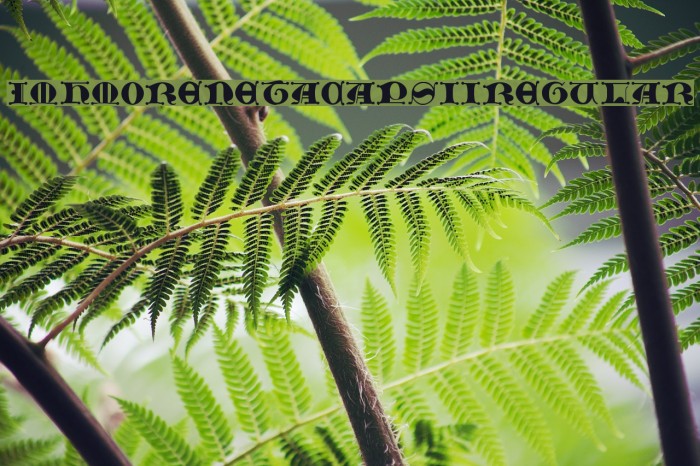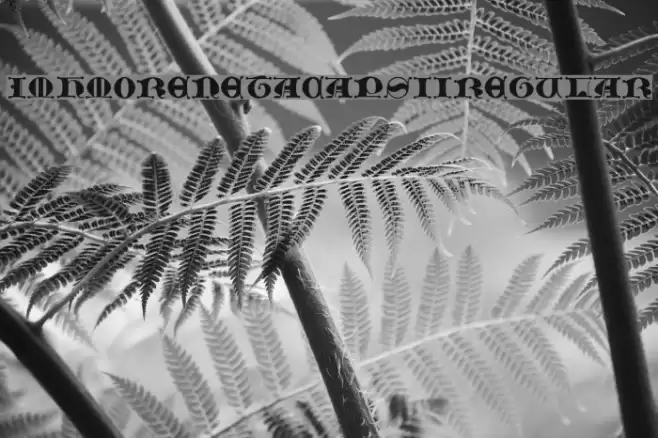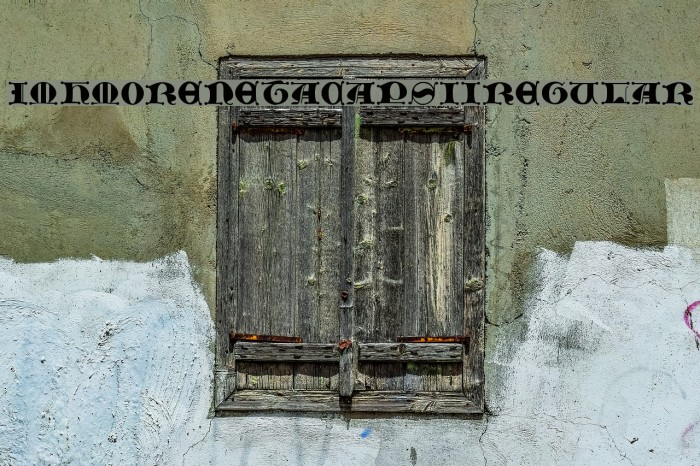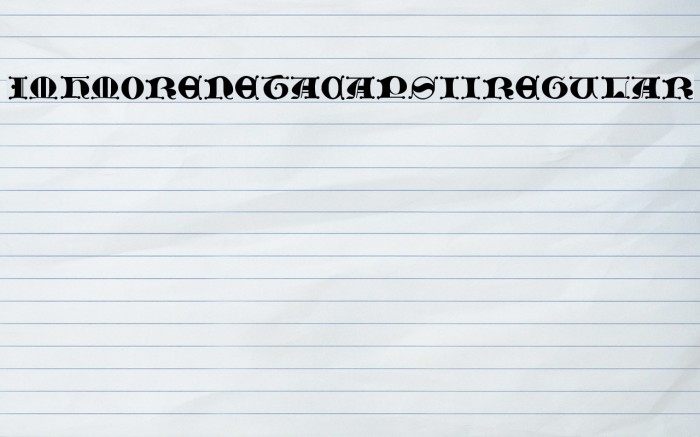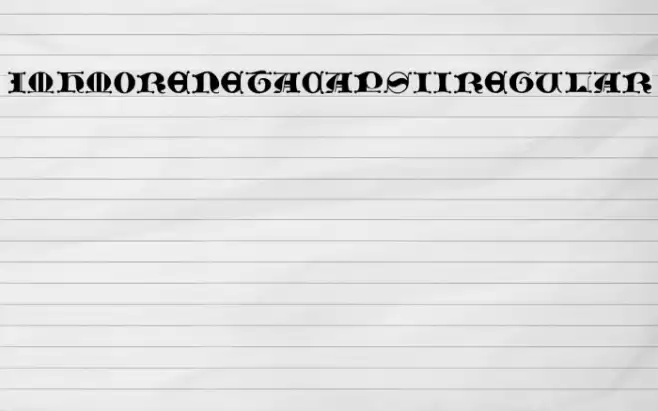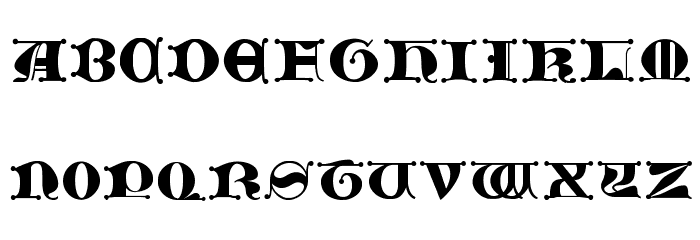
JMHMorenetaCAPSII-Regular Font
This font exhibits a bold and decorative style with a unique blend of traditional and modern elements. Each character is adorned with intricate details, including small circular embellishments at the ends of strokes, giving it a distinct and ornate appearance. The uppercase letters are particularly striking, with a strong presence and elaborate design that captures attention. The font's overall aesthetic is reminiscent of historical scripts, yet it maintains a contemporary flair, making it suitable for a variety of creative applications. Its boldness and decorative nature make it ideal for projects that require a touch of elegance and sophistication.
| Proposed Projects | Ideal for branding, logos, headlines, posters, and any design that requires a decorative and sophisticated touch. |